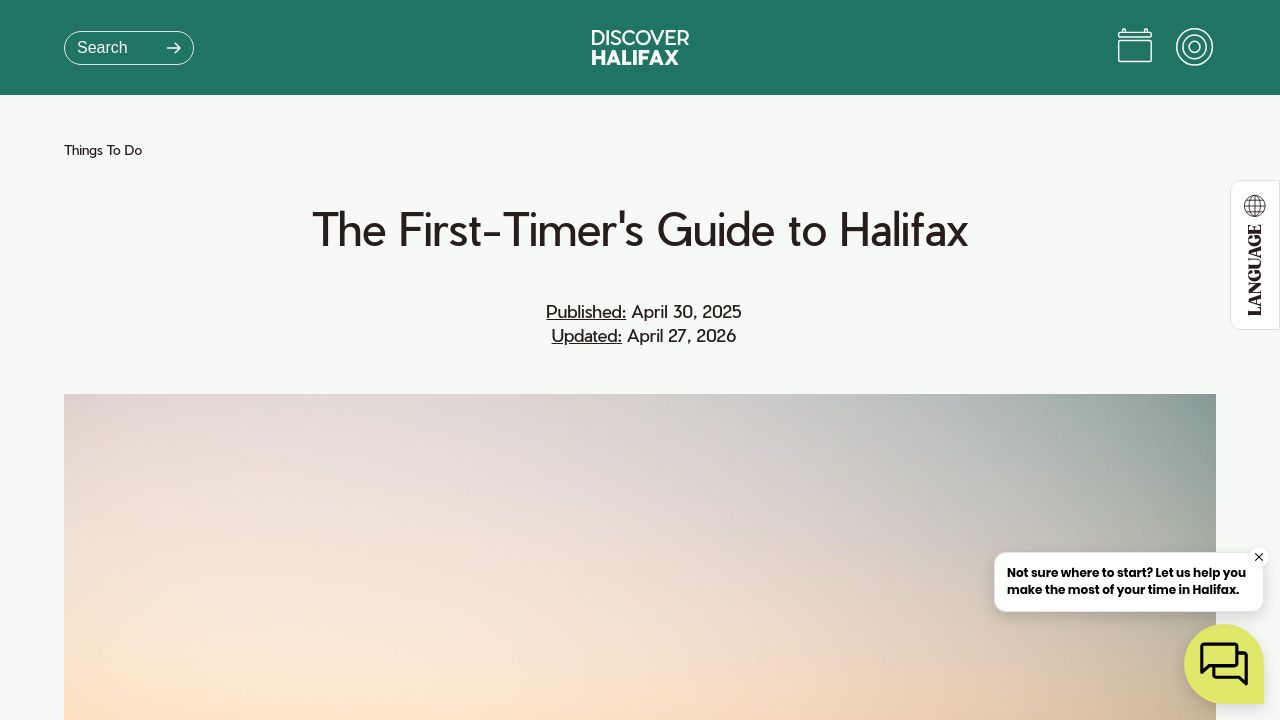
Discover Halifax employs a thoughtful selection of fonts that resonate with its audience of first-time visitors. The use of Helvetica and Lucida Grande ensures clear communication, while custom fonts like Journal and PP Pier Sans create a welcoming and unique identity. The bold Gazpacho Heavy captures attention, enhancing the site's visual appeal. This typography choice reflects the vibrant culture and experiences awaiting those who explore Halifax.
The primary fonts used on discoverhalifaxns.com include Helvetica, Lucida Grande, Journal, PP Pier Sans, and Gazpacho Heavy, among others.
Fonts like Helvetica and Lucida Grande offer readability and familiarity, while custom types like PP Pier Sans provide a distinctive character, setting the site apart from alternatives.
The site utilizes various font weights, including regular weights for Helvetica and Lucida Grande, as well as bold weights for PP Pier Sans Bold and Gazpacho Heavy.
Yes, the site includes fallback fonts such as Arial, Roboto, and Segoe UI to ensure consistent rendering across different devices and browsers.